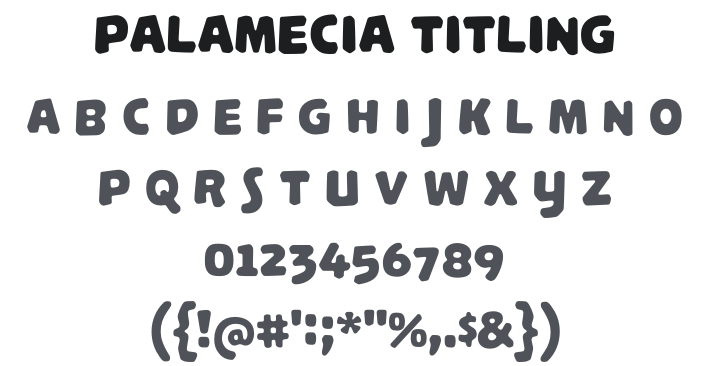
Palamecia Titling Font
About Palamecia Titling
Palamecia Titling is a bold, all-caps display typeface designed for digital clarity and resilience. Its blocky, slightly organic forms stay crisp across resolutions, making it ideal for user interfaces, headlines, and titles that demand legibility and impact. Balancing playful energy with technical precision, it feels both approachable and authoritative. With wide Latin language support and a free commercial-use desktop license, Palamecia Titling delivers strong, screen-ready typography that stands out with confident simplicity.